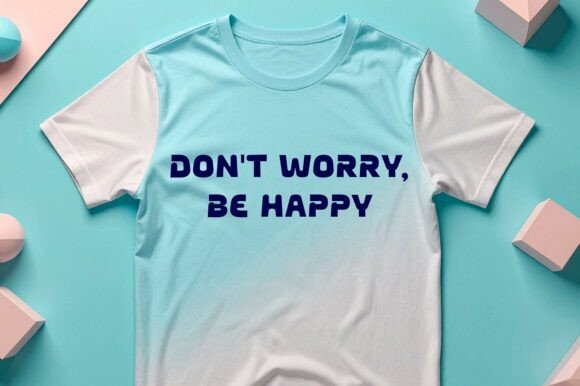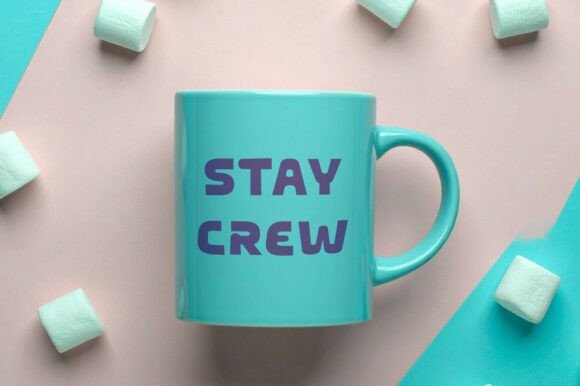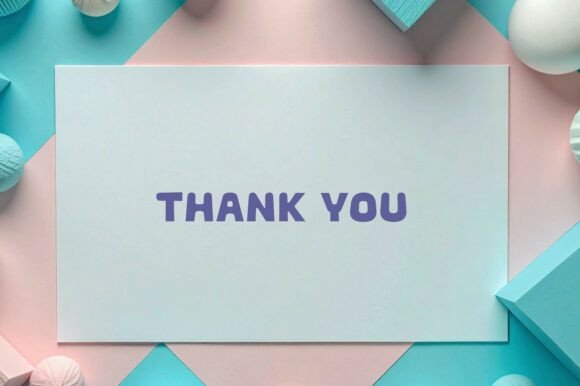
The Among You Font: A Friendly and Playful Typeface for Creative Projects
I still remember the design project that led me to discover the Among You font. I was working on a branding campaign for a children’s educational app, and I was struggling to find a font that conveyed a sense of friendliness and approachability. The client wanted a playful yet modern look that would appeal to both kids and parents. After hours of searching, I stumbled upon the Among You font, and it instantly clicked. Its bold, rounded, and cheerful design perfectly captured the tone I was looking for.
An Honest Review: What I Love and What to Consider
- ✅ Friendliness and Approachability: The Among You font exudes a welcoming and non-intimidating feel, making it perfect for engaging and lighthearted communication.
- ✅ Modern and Playful: The font strikes a great balance between being fresh and current without being overly childish, making it versatile for diverse age groups.
- ✅ High Impact and Legibility: The bold weight ensures that text is easily seen and read, even in short phrases or headlines.
- ✅ Versatility: The font’s simplicity allows it to be used in various contexts, from digital interfaces to physical products.
While the Among You font is excellent for display purposes, it may not be the best choice for body text due to its bold weight. Additionally, some users might find the rounded terminals too soft for certain design applications.
🤔 One thing to consider is that the font’s playful nature might not be suitable for more formal or professional projects. However, for creative and engaging designs, it’s an excellent choice.
- Experiment with the font’s OpenType features, such as ligatures and stylistic alternates, to add more personality to your text.
Designer Inspiration: The Story Behind the Among You Font
The Among You font was designed with the goal of creating a friendly and approachable typeface that would convey a sense of happiness and community. The designer aimed to create a font that would be perfect for engaging and lighthearted communication, while still being versatile enough to be used in various contexts.
| Font Name | Among You Font |
| Author | wep – Wahyu Eka Prasetya |
| What is the Among You font best suited for? | The Among You font is best suited for display purposes, such as headlines, titles, and short phrases, where a friendly and playful tone is desired. |
| Is the Among You font suitable for body text? | No, the Among You font is not recommended for body text due to its bold weight. It’s best used for display purposes where a strong impact is desired. |